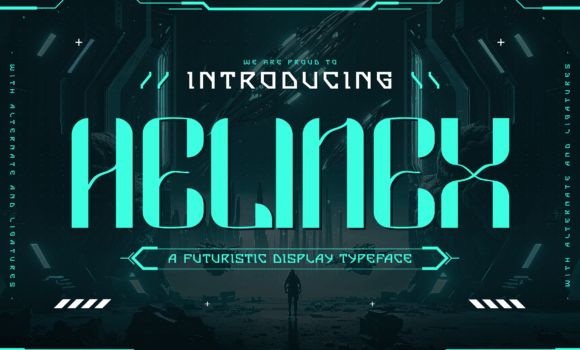
helinex
Helinex Font - Featured Image
Helinex Font – Free Download Introduction to Helinex Font Helinex is a bold futuristic display typeface that captures the sleek aesthetics of sci-fi and modern design. 📸 Preview Gallery 6 images 📌 Product Name Helinex Font 👤 Author TypeFactory 📂